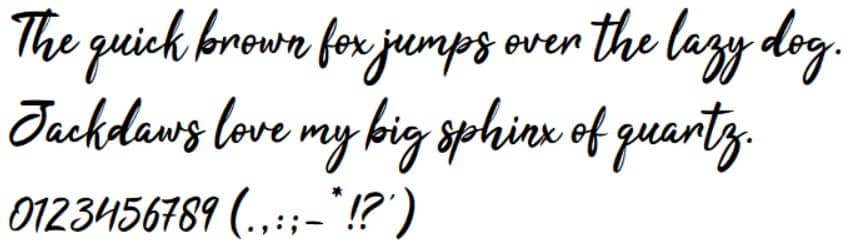
About Tahu Font
Tahu is a font that you can utilize all over. From routine keying to develop creation, this font is suitable to use in any type of point of view. Designers like to utilize this font more than others. A number of designers refer to and also prefer this font for the function not just for their convenience yet likewise for the spectacular look. Besides creating you can utilize this font in the area which is given listed below.
Designing: For massive designing purposes, such as business cards, headings, Brochure formats, Tahu goes to the top of everybody’s favorite checklist.
Logo designs: You can design your logos with it.
Websites: I have actually seen different websites utilize this font.
Magazines: The font has the overview to place on top of publications.
Tahu Font View
| Name | Tahu  Font. |
| Style | Handwriting, Script |
| Designer | Khurasan. |